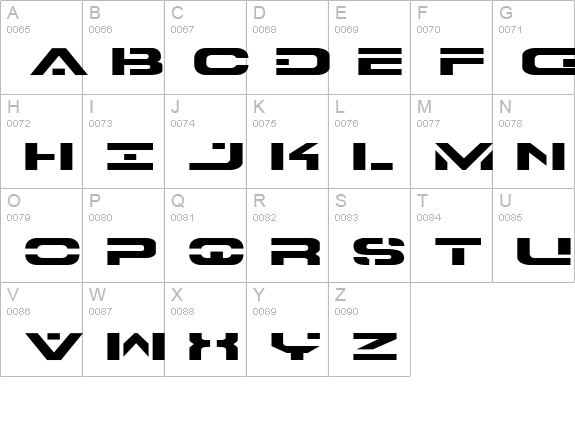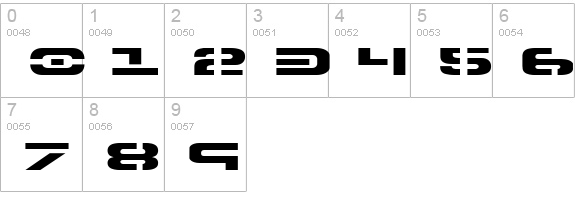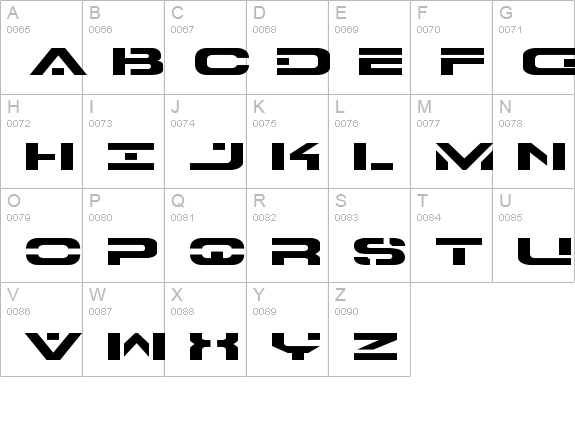
7th Service Expanded is a distinctive, extended-width variant in the 7th typeface family \xE2\x80\x94 well suited to design and typography projects.
The 7th Service Expanded font is a versatile and modern typeface that is perfect for a wide range of design projects. Its clean lines and bold presence make it ideal for headlines, posters, logos, and more. This font features an expanded version that adds extra impact and style to your text. With its sleek design and contemporary feel, the 7th Service Expanded font is sure to make a statement in any design. What's even better is that this font is available for free download at FontsMarket.com. Simply visit the website and get access to this amazing font at no cost. Whether you're a designer looking to add a fresh touch to your projects or a business owner in need of a standout logo, the 7th Service Expanded font is a fantastic choice that won't break the bank. Download it today and elevate your design game with this eye-catching typeface.